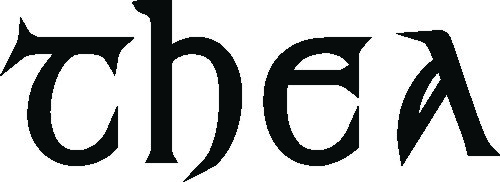
I have this font but it doesn’t have capitals, I have managed so far by enlarging the letters that are the same in both cases but the ‘h’ changes shape in capital form.
So does anyone know the font like this with lower and upper case?
This is just from observation, but usually an uncial alphabet only has capitals.
Often you will see a really fancy first letter used, as in an illumination.
If you must use this font, perhaps add in the lower case letters from Old English?
You might also do a search of Celtic fonts on dafont.com.
Thanks Jill, I am actually replacing some letters on an existing sign, hence the reason I have to use this (as near as dam it) font.
I don’t know the font Dave, but anything here any good?